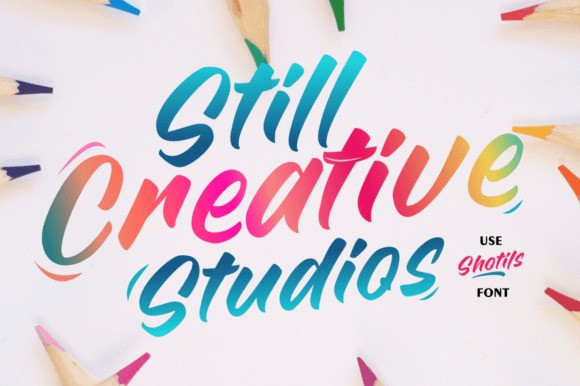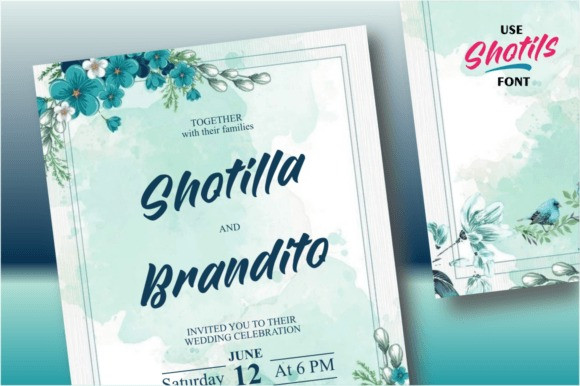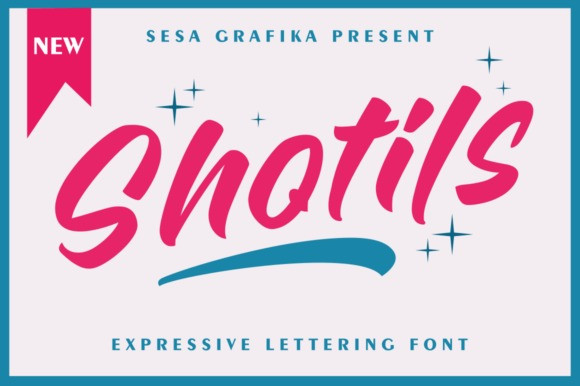
Shotils Script Font
Shotils Script Font is is designed with a natural expressive handwriting style. This font is perfect for Logo Branding, tshirt design, posters and so much more! Remember that the font is PUA encoded, meaning you can access all delightful glyphs and swashes effortlessly.